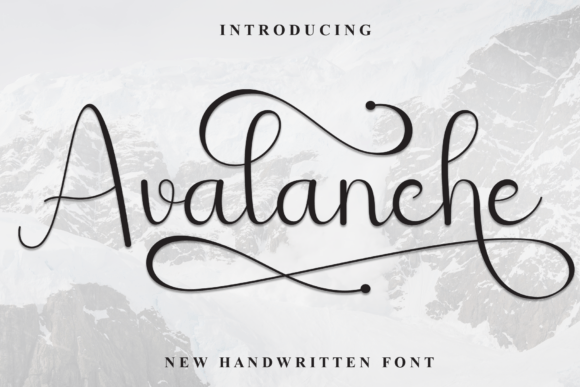
Introducing Avalanche Font: A Charmingly Handwritten Delight
- ✅ Delightfully sweet and inviting: Avalanche Font perfectly embodies the warmth and personality of handwritten notes.
- ✅ Perfect for creative projects: This font is ideal for wedding invitations, heartfelt cards, and any design that requires a personalized touch.
- ✅ Highly versatile: From digital designs to print materials, Avalanche Font adapts seamlessly to various mediums.
- ✅ Friendly ambiance: This font effortlessly creates a welcoming atmosphere, making it perfect for designs that require a touch of personality.
- ⚠️ Limited use in formal designs: Due to its playful nature, Avalanche Font might not be the best fit for formal or corporate designs.
- ⚠️ May require adjustments for longer texts: As a display font, Avalanche Font shines in headlines and short paragraphs, but might require tweaks for longer blocks of text.
The Story Behind Avalanche Font
Avalanche Font was designed with the intention of capturing the joy and warmth of handwritten notes. Its creator, a talented type designer, aimed to craft a font that would bring a touch of personality to any design project. With its charmingly handwritten style and delightful sweetness, Avalanche Font has become a popular choice among designers and crafters.
| Is Avalanche Font suitable for body text? | While Avalanche Font can be used for body text, it’s primarily designed as a display font and shines in headlines and short paragraphs. |